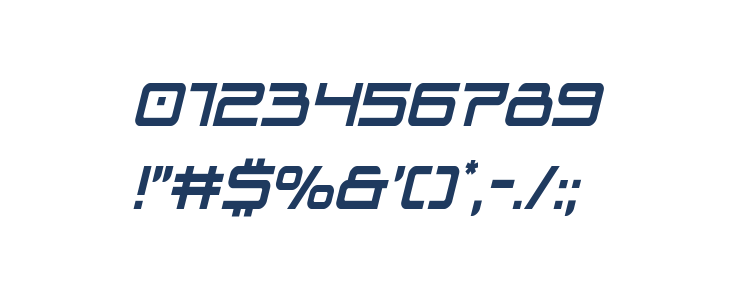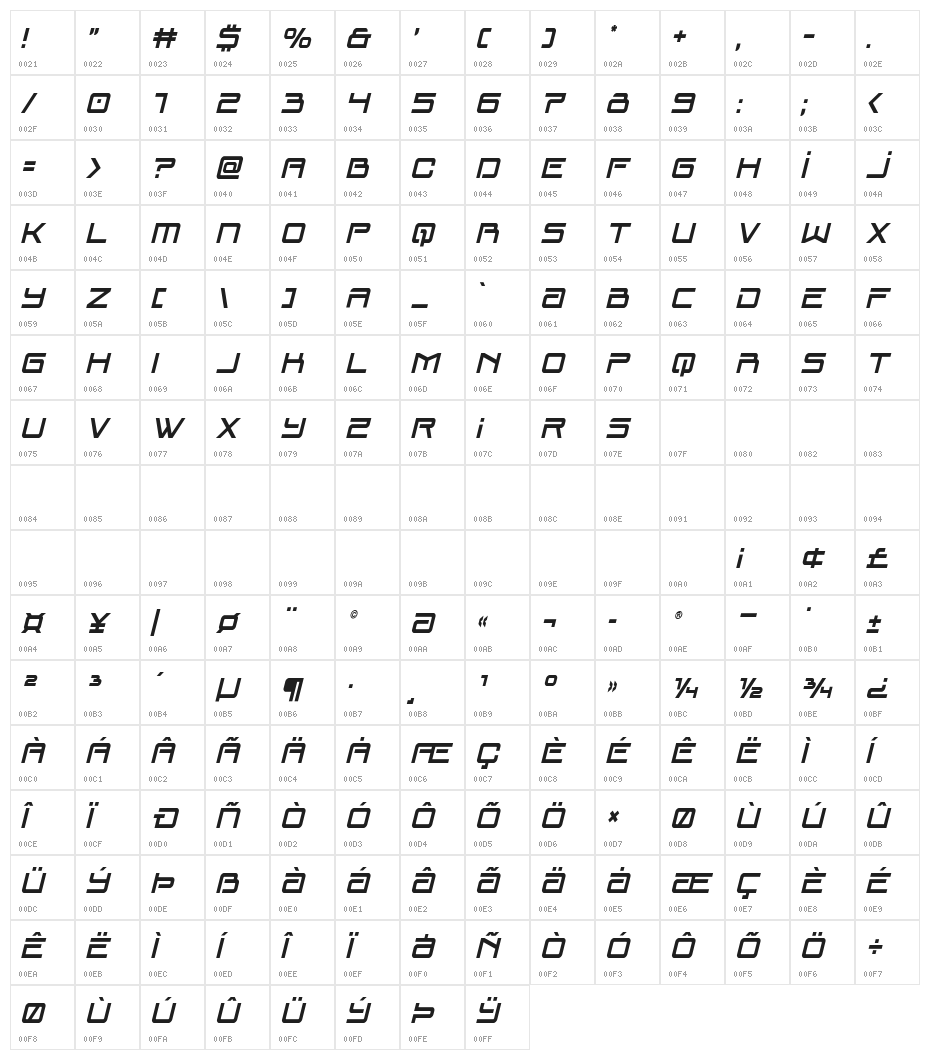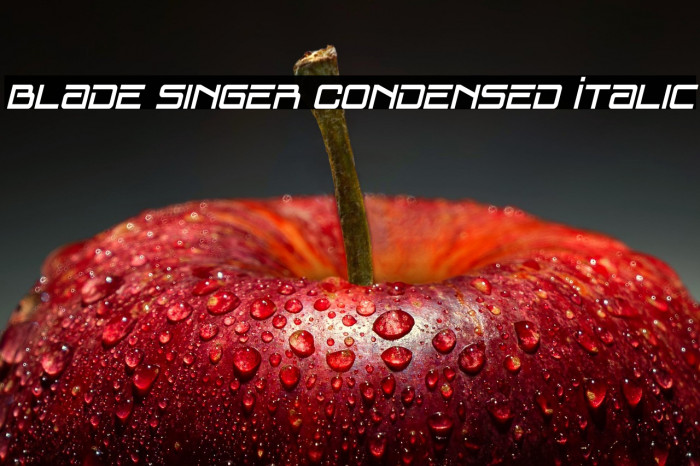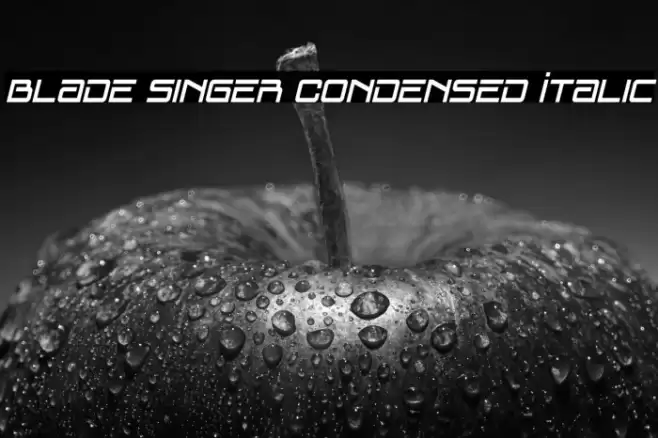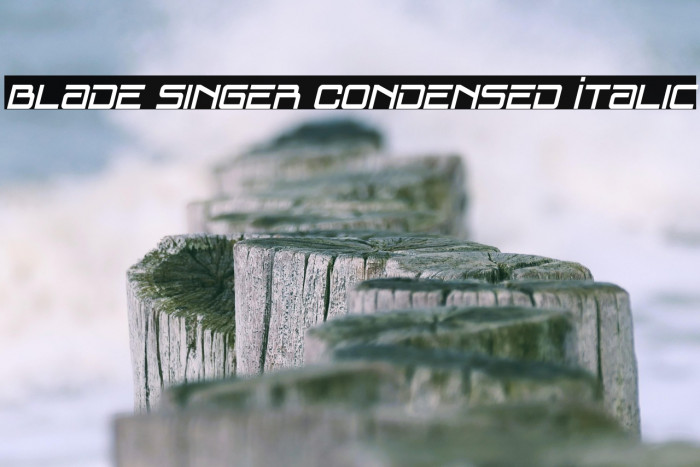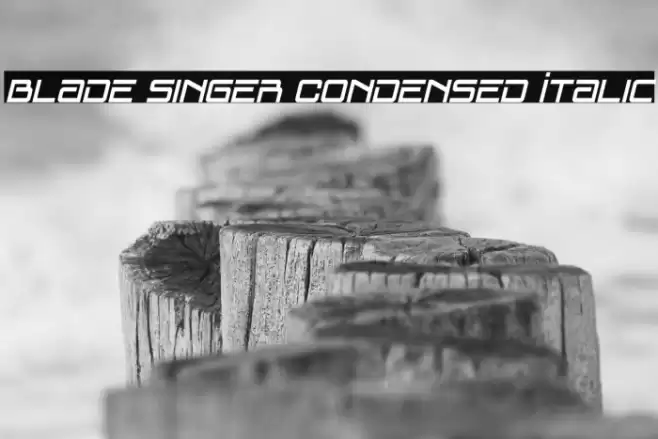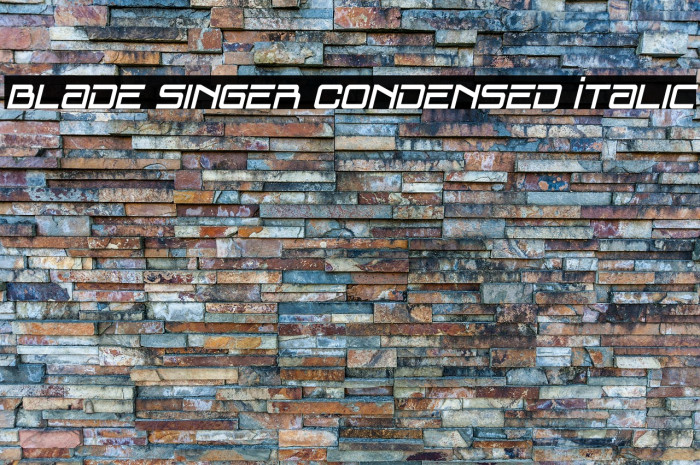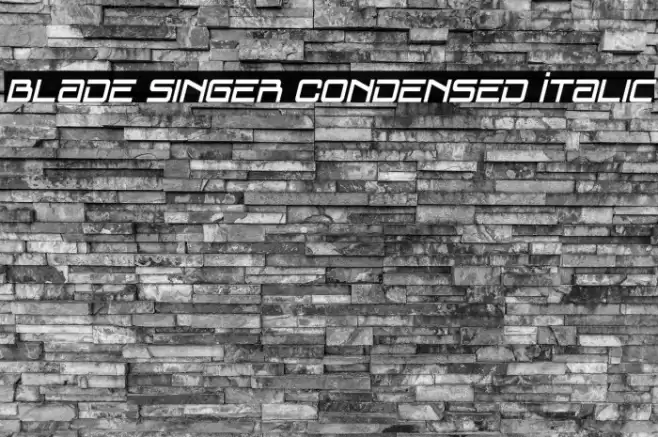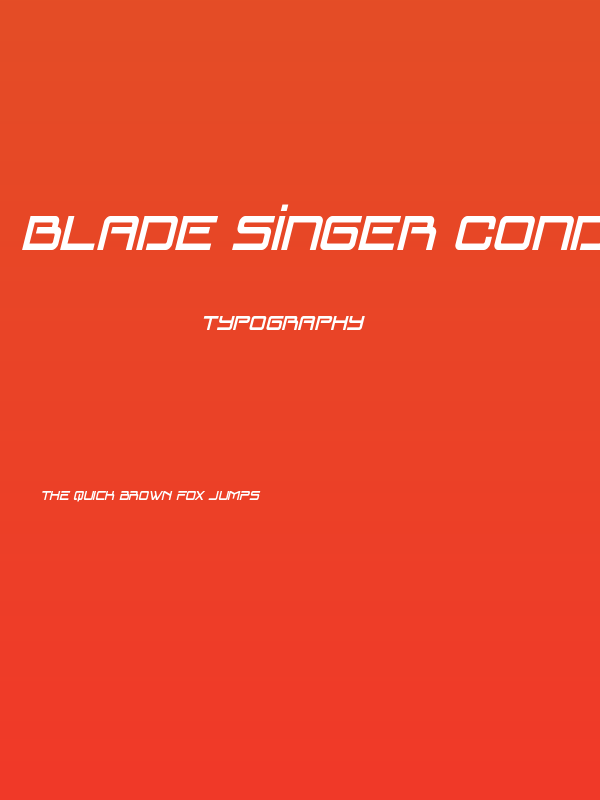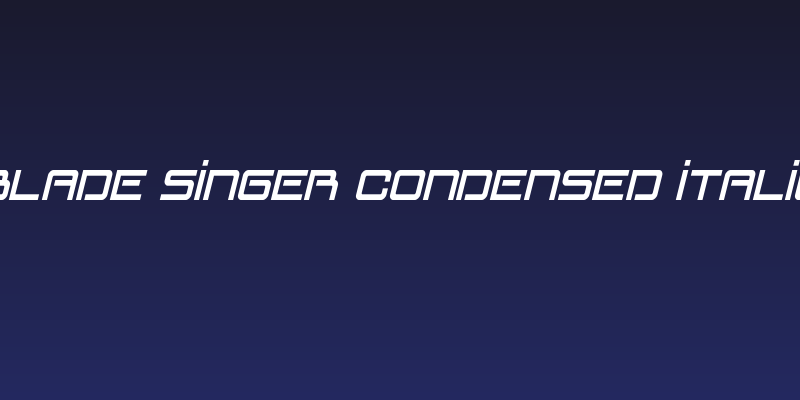
Blade Singer Condensed Italic Font
Blade Singer Condensed Italic Description
This font features a modern, sleek design with a condensed and italicized style. The characters are angular and geometric, giving a futuristic and dynamic appearance. The uppercase and lowercase letters maintain a consistent slant, enhancing the italic effect. The numbers and special characters follow the same design principles, ensuring uniformity across all glyphs. The font's condensed nature allows for efficient use of space, making it suitable for various design applications where space is a premium. The overall style is bold and assertive, making it ideal for projects that require a strong visual impact.
| Proposed Projects | Ideal for technology branding, sports team logos, futuristic posters, and dynamic web design. |